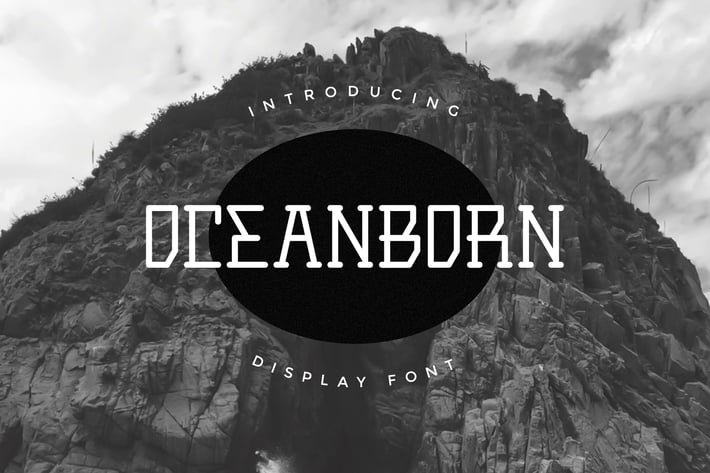
Oceanborn - Display Font
Oceanborn is a display font. It has elegant, minimal, classy, and modern. It’s a great font for fashion, apparel projects, signature, album cover, logo, branding, magazine, social media, & advertisements, but also works great for other projects.